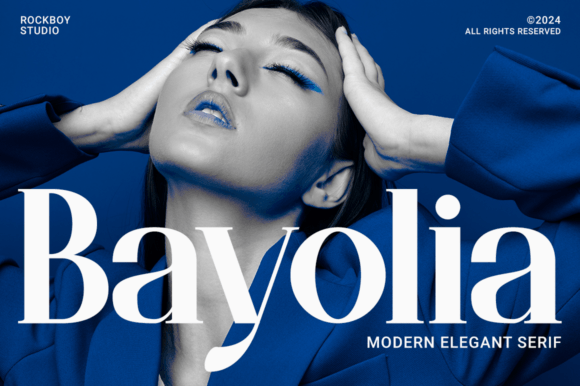
The Font That Brings Your Creative Ideas to Life
Have you ever stared at a blank page, feeling the pressure to create something truly remarkable? You’ve got an idea brewing in your mind, but the words just won’t come together. That’s where the right font can be a game-changer. Introducing the Bayolia Font, a masterfully designed serif font that’s about to become your new go-to.
This elegant and authentic font is more than just a pretty face – it’s a tool that can elevate your designs to the next level. With its unique character and versatility, the Bayolia Font is a valuable asset for any designer looking to add a touch of sophistication to their work. Whether you’re a seasoned pro or just starting out, this font has the potential to take your creative ideas to new heights.
Bayolia Font Key Features
- Font Family: Bayolia, Bayolia Italic, Bayolia Bold, Bayolia Bold Italic, Bayolia ExtraBold, Bayolia ExtraBold Italic
- Character Set: Supports a wide range of characters, including Latin, Cyrillic, and Greek alphabets
- Unique Characteristics: Bayolia features a distinctive, elegant design with intricate details and subtle flair, making it ideal for high-end branding and publishing projects
Bayolia Font Review
As a designer, I was excited to dive into the Bayolia font and see what it has to offer. Overall, I have mixed feelings about this font, but I’ll break down the good and the not-so-good.
- Unique Design: Bayolia has a distinct, modern look that sets it apart from other fonts. Its unique design makes it perfect for creating a bold, eye-catching visual identity.
- Legibility: Despite its unconventional design, Bayolia is surprisingly easy to read, even at smaller font sizes.
- Versatility: Bayolia comes in a range of weights and styles, making it suitable for various design applications, from headlines to body text.
- Overuse: Bayolia’s bold design can quickly become overwhelming if used excessively. It’s essential to use it sparingly to avoid visual fatigue.
- Limited Readability: While Bayolia is legible, it may not be the best choice for long blocks of text or formal documents, as its unique design can be tiring to read.
Bayolia is a striking font that can add a touch of modernity to your designs. However, its limitations should not be overlooked. Use it wisely, and you’ll be rewarded with a visually stunning design. But be cautious not to overdo it, lest you sacrifice readability for the sake of aesthetics.
Some tips for getting the most out of the Bayolia font include:
– Using it for titles and headings to add a touch of elegance and sophistication.
– Pairing it with other fonts to create a unique and visually appealing combination.
– Using it for invitations, menus, and other formal documents where a touch of luxury is desired.
– Experimenting with different font sizes and styles to create a visually striking effect.